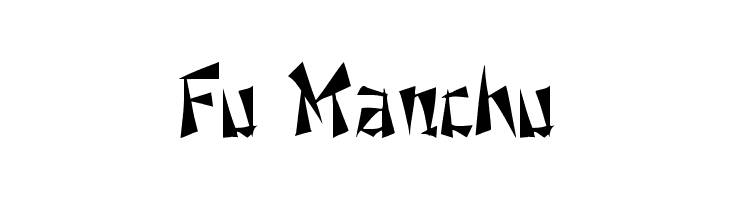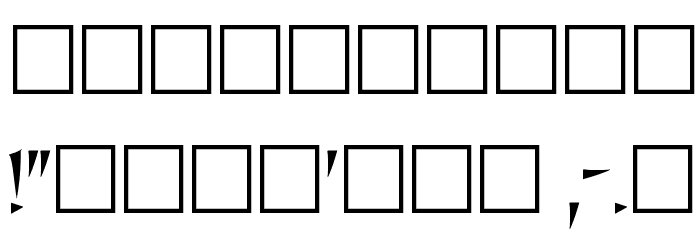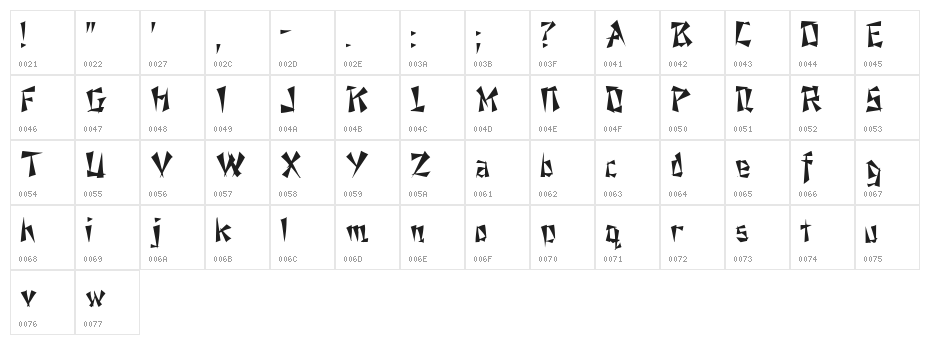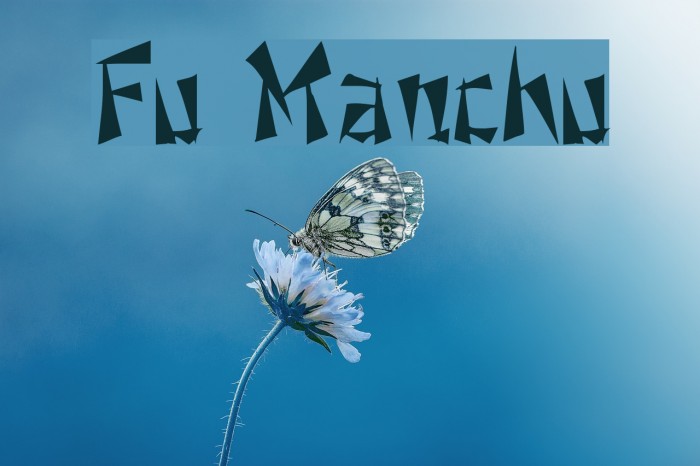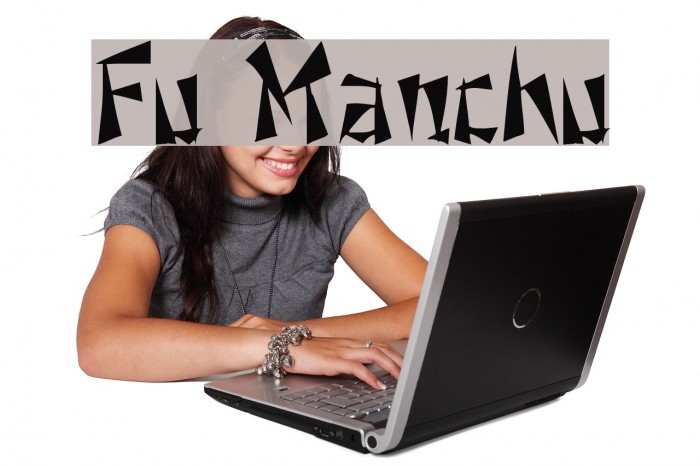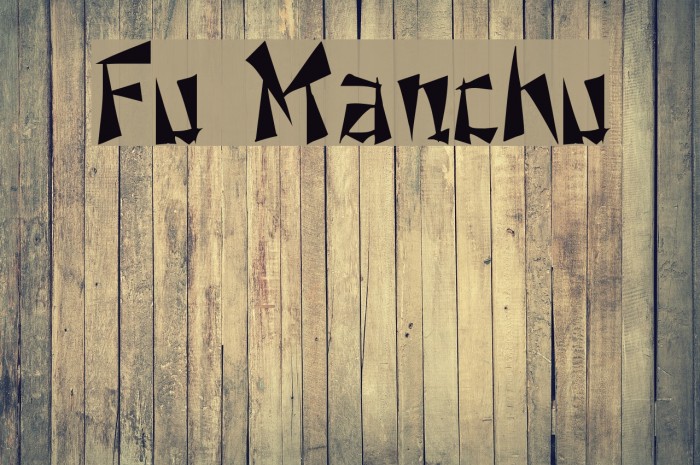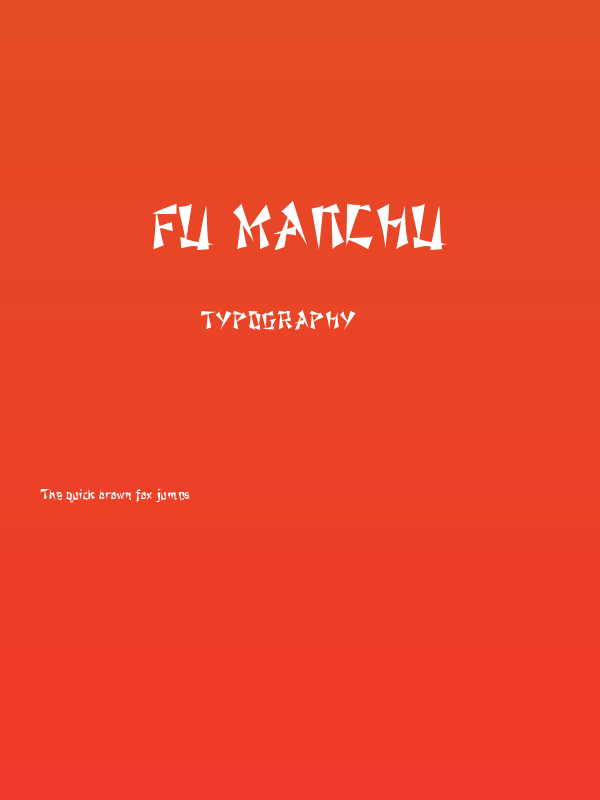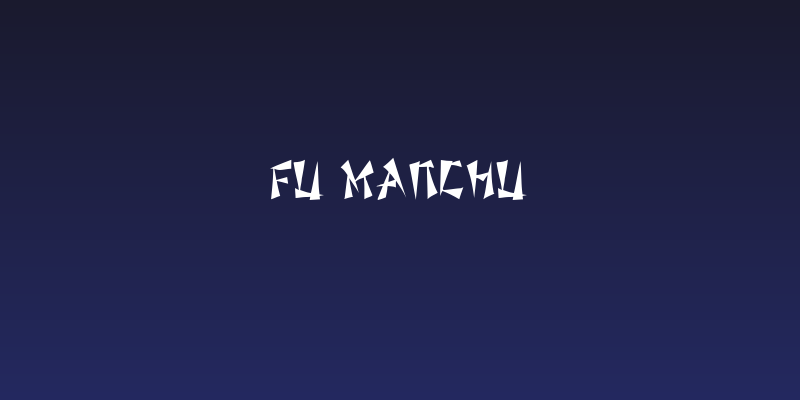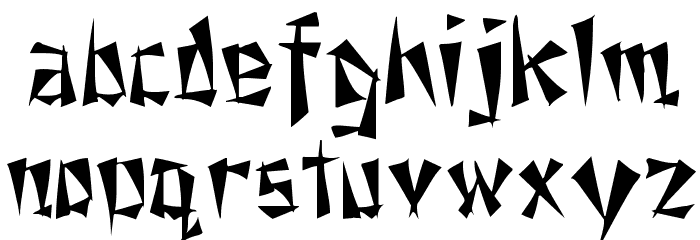
Fu Manchu Font
Fu Manchu Description
This font features a bold and edgy design with sharp, angular lines that create a sense of movement and intensity. The characters are highly stylized, with exaggerated points and curves that give them a unique, almost aggressive appearance. The uppercase and lowercase letters maintain a consistent style, with each character exhibiting a dynamic form that suggests energy and action. The numbers and special characters are equally distinctive, ensuring a cohesive look across all text elements. This font's striking design makes it ideal for projects that require a strong visual impact.
| Overall Style | Modern, Edgy |
| Proposed Projects | Ideal for posters, album covers, video game titles, and any project needing a bold, impactful visual statement. |